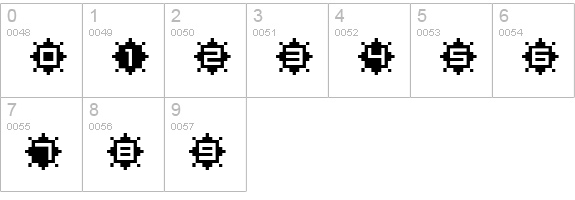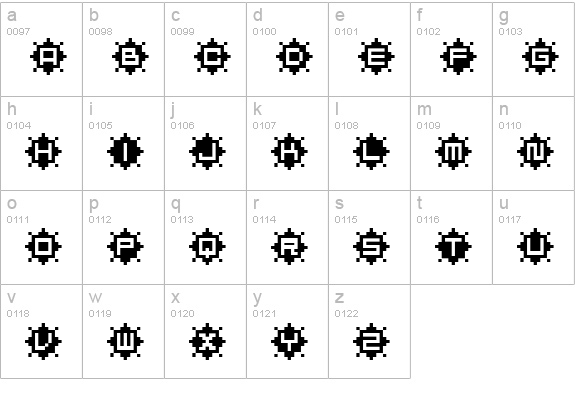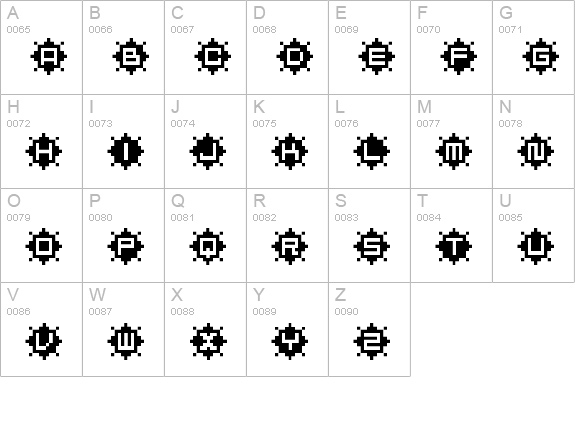
BM ruby A12 Font Details
The BM ruby A12 font is a stunning display typeface that exudes elegance and sophistication. Its sleek lines and unique design make it perfect for adding a touch of luxury to any project. This versatile font can be used for a wide range of design purposes, from branding to editorial design. And the best part? It's completely free! You can download the BM ruby A12 font for free at FontsMarket.com. Don't miss out on this amazing opportunity to enhance your designs with this beautiful and stylish font. Get your hands on the BM ruby A12 font today and take your design projects to the next level!